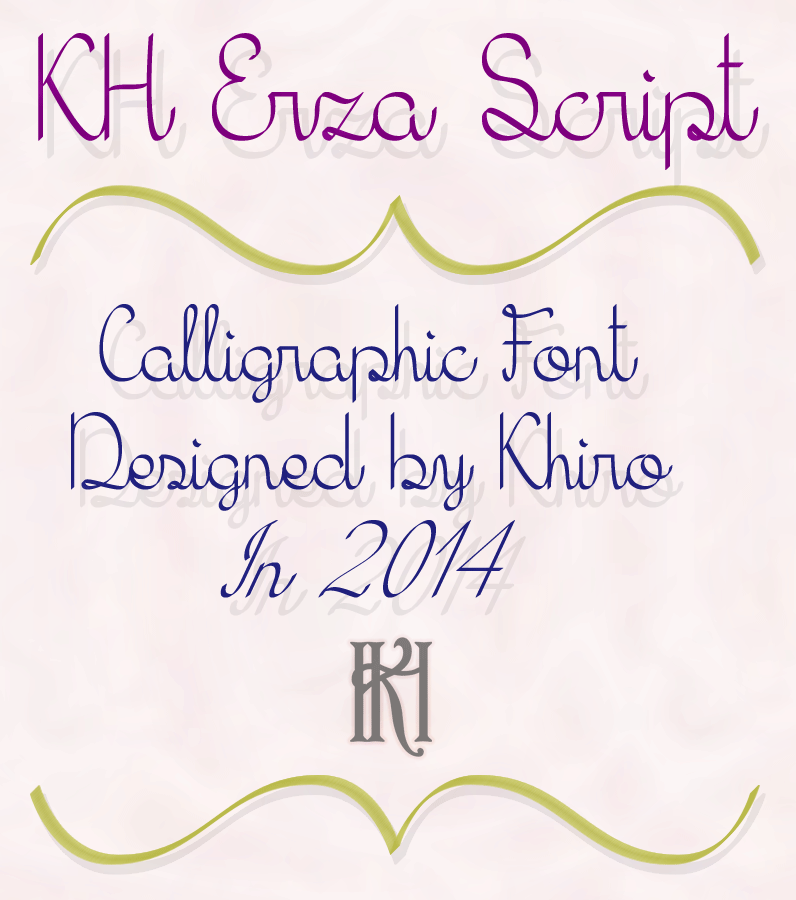
Font name: | KH Erza Script |
Author: | Khiro |
Note by Khiro | |
KH Erza Script is a Calligraphic font designed by Khiro. Its Free for personal and Commercial use. Enjoy! Note: It's better you avoid using this font in phrases (sentences) or long words which is written in UPPERCASE. |